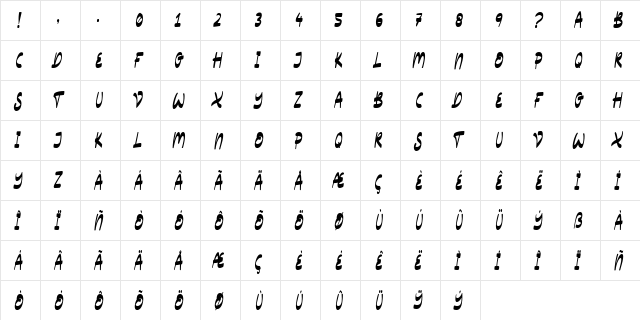
Vlogger Regular
| Foundry | Epiclinez |
| Designer | Aldy Sidik |
Design Context for Vlogger Typeface
Vlogger is a composed and adaptable typeface that performs quietly and consistently across a wide range of design contexts.